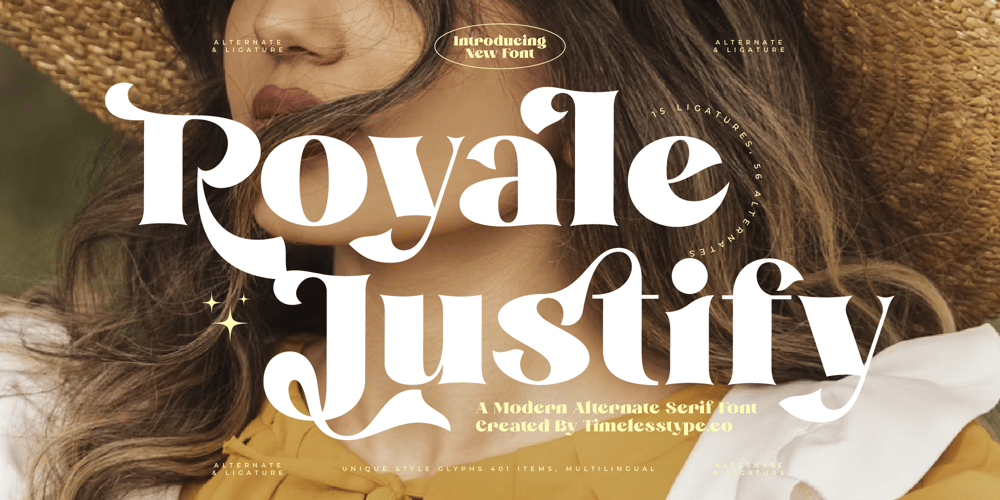
Royale Justify
Royale Justify font
Royale Justify Font Family was designed by Heru Utama Putra and published by Timelesstype Studio. Royale Justify contains 2 styles and family package options. Royale Justify – Modern Alternate Serif Font , from Timelesstype , Suitable for any projects such as: logos, branding projects, homeware designs, product packaging, mugs, quotes, posters, shopping bags, t-shirts, book covers, name card, invitation cards, greeting cards, label, photography, watermark, special events, and all your other luxury and beautiful projects that need a Luxury Serif taste.